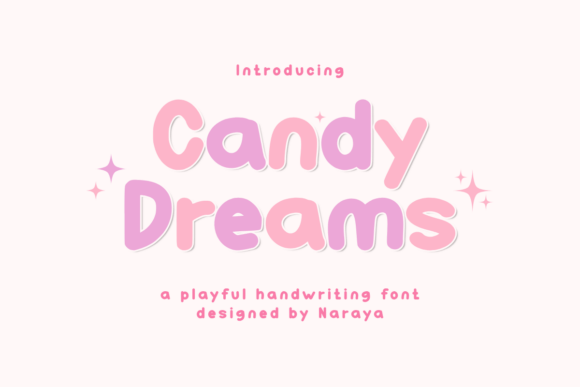
Candy Dreams: A Playful Handwriting Font for Modern Creators
Understanding the Personality and Style of Candy Dreams
Candy Dreams is a premium font that immediately communicates warmth, approachability, and creative energy. As a handwritten font, it captures the organic feel of natural pen strokes while maintaining enough consistency to function reliably in professional contexts. The letterforms feature gentle curves, slightly varying baselines, and a casual rhythm that mimics authentic handwriting without sacrificing legibility.
What makes this creative font stand out is its balance between playfulness and readability. Many script fonts lean too heavily into decorative flourishes, making them impractical for extended use. Candy Dreams avoids this trap. The characters maintain clear distinction from one another, even at smaller sizes, which opens up possibilities across different applications.
The visual personality of Candy Dreams sits somewhere between whimsical and sophisticated. It doesn't scream for attention like some display fonts, but it certainly doesn't disappear into the background either. This middle ground makes it remarkably versatile for designers who need a typeface that adds character without overwhelming other design elements.
Where Candy Dreams Truly Shines
The practical applications for a font like Candy Dreams extend far beyond what you might initially expect. In logo design, it works beautifully for brands targeting younger demographics, lifestyle products, food and beverage companies, beauty brands, and creative services. The handwritten quality immediately humanizes a brand, suggesting authenticity and personal touch that consumers increasingly value.
For social media graphics, Candy Dreams becomes particularly powerful. Instagram quotes, Pinterest pins, Facebook headers, and TikTok overlays all benefit from a font that feels personal and engaging. The casual style encourages readers to pause their scrolling, which is exactly what content creators need in crowded feeds.
Small business owners find this font especially useful for:
- Packaging design for artisan products, baked goods, and handmade items
- Product labels that need to convey care and craftsmanship
- Business cards and thank-you notes that build customer relationships
- Email headers and newsletter graphics that maintain brand consistency
- Website banners and web design elements for landing pages
Crafters and hobbyists appreciate Candy Dreams for Cricut projects, vinyl decals, custom apparel, planner stickers, and scrapbooking elements. The SVG files compatibility means clean cuts and smooth curves, which matters significantly when working with cutting machines.
In editorial design, this font serves specific purposes well. Pull quotes, chapter titles, magazine headers, and cookbook layouts all benefit from the handwritten aesthetic. It pairs surprisingly well with clean sans serif fonts for body text, creating visual contrast that guides readers through content hierarchy naturally.
Making Smart Design Decisions with Candy Dreams
Choosing the right font for any project requires honest evaluation rather than personal preference alone. Before committing to Candy Dreams, consider your audience demographics, brand positioning, and the specific context where the text will appear. A children's educational platform and a luxury jewelry brand have very different needs, even though both might theoretically use a handwritten font.
Font pairing deserves careful attention when working with Candy Dreams. As a script font, it naturally pairs with simpler typefaces. Try combining it with a geometric sans serif font for modern, approachable designs. Alternatively, pairing it with a traditional serif font creates an interesting tension between casual and formal that works well for lifestyle brands and editorial design projects.
Readability testing matters more than many designers realize. What looks charming at 48 pixels on your monitor might become illegible at 14 pixels on a mobile screen. Test Candy Dreams at multiple sizes across different devices before finalizing any web design or digital project. Print testing is equally important, especially for packaging design where viewing distances and lighting conditions vary considerably.
Evaluate the complete character set before purchasing any commercial font. Check that Candy Dreams includes the specific symbols, numbers, and special characters your project requires. Some premium fonts include alternate characters, ligatures, and stylistic variations that expand creative possibilities significantly.
The most successful typography choices serve the message rather than competing with it. Candy Dreams works best when it enhances communication rather than becoming the focal point itself. Let the content lead, and allow this handwritten font to support and elevate your creative vision naturally.